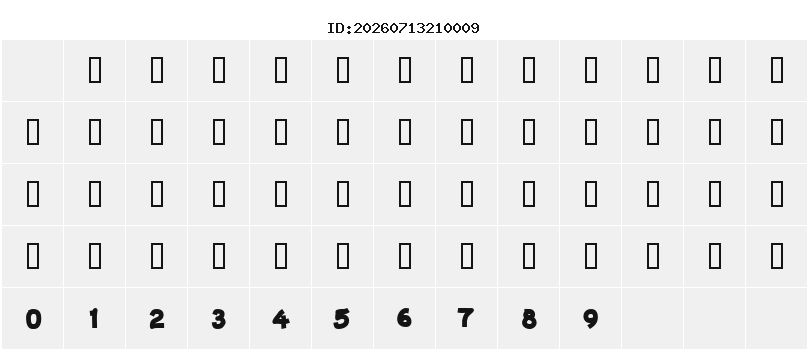
Camping Bold.ttf is a modern, elegant sans-serif font designed for ultimate readability and visual harmony. Perfect for branding, headlines, web design, and print materials.